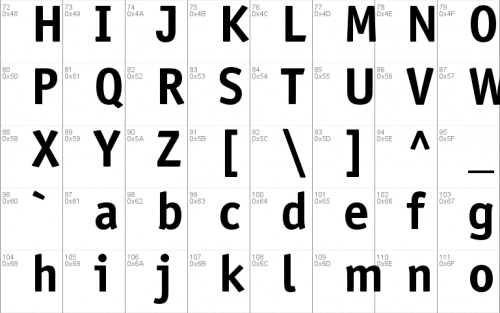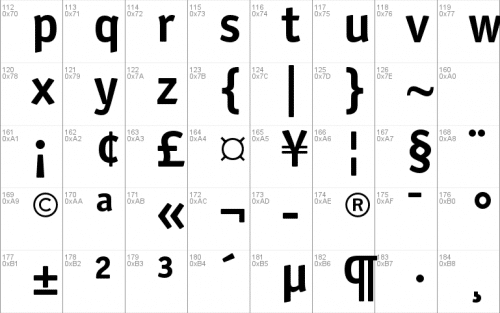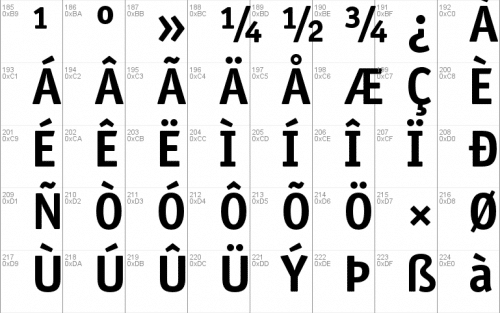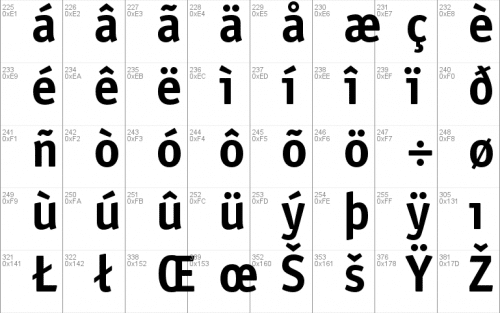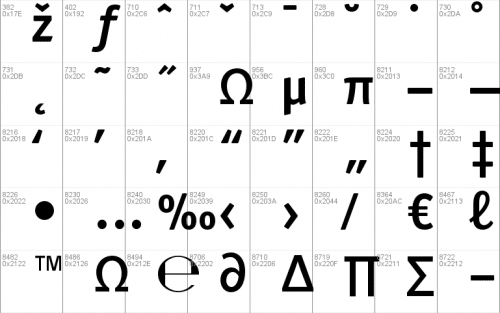
The ITC Officina® Sans design is deceptively simple. It has a look reminiscent of older print technologies, typewriters and printing presses, but was designed for improved legibility when printed on low-resolution output devices, such as laser-printers.
- Designer: Erik Spiekermann, Ole Schäfer